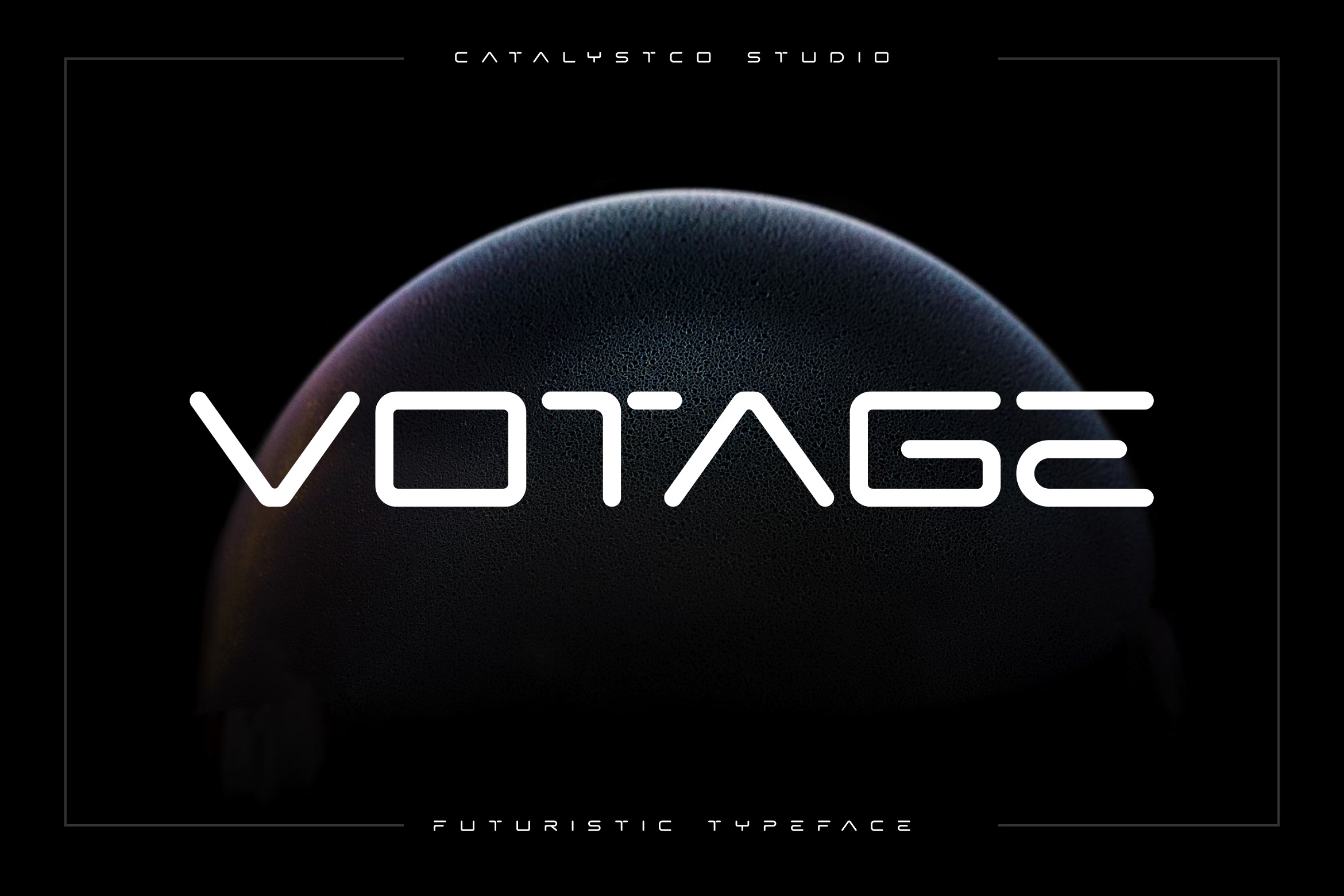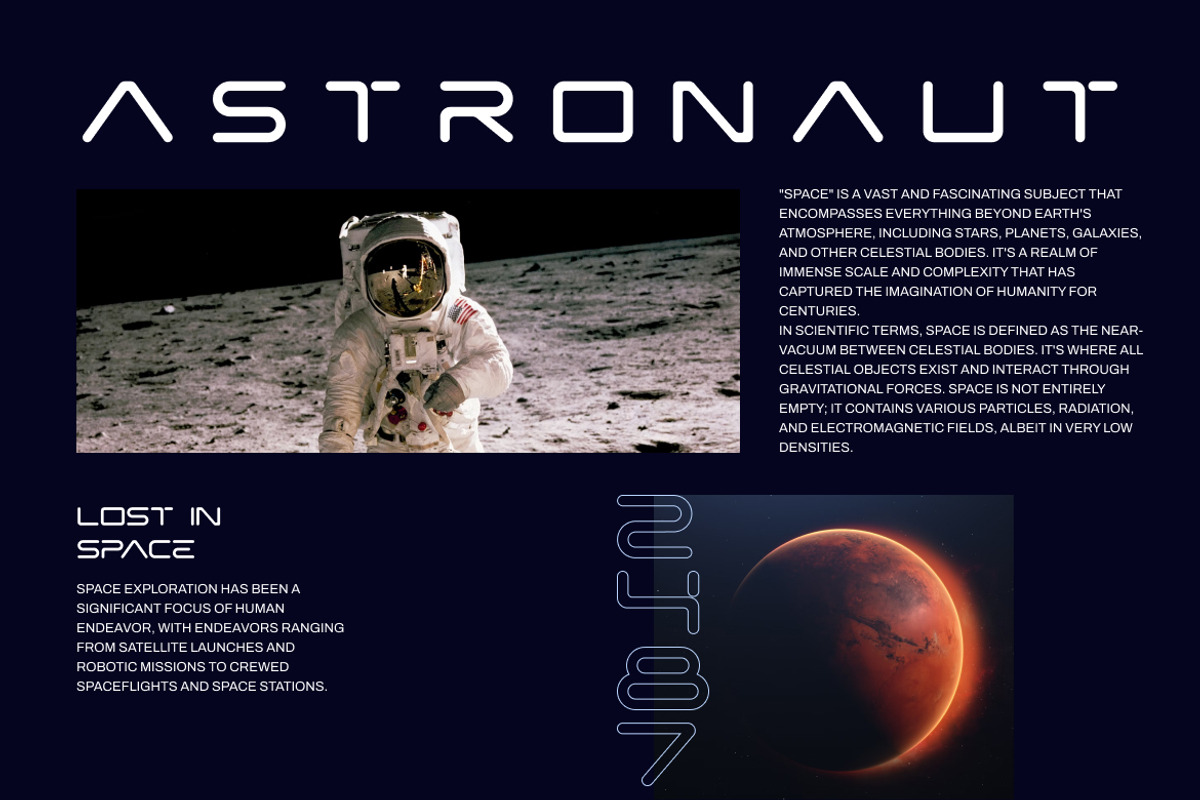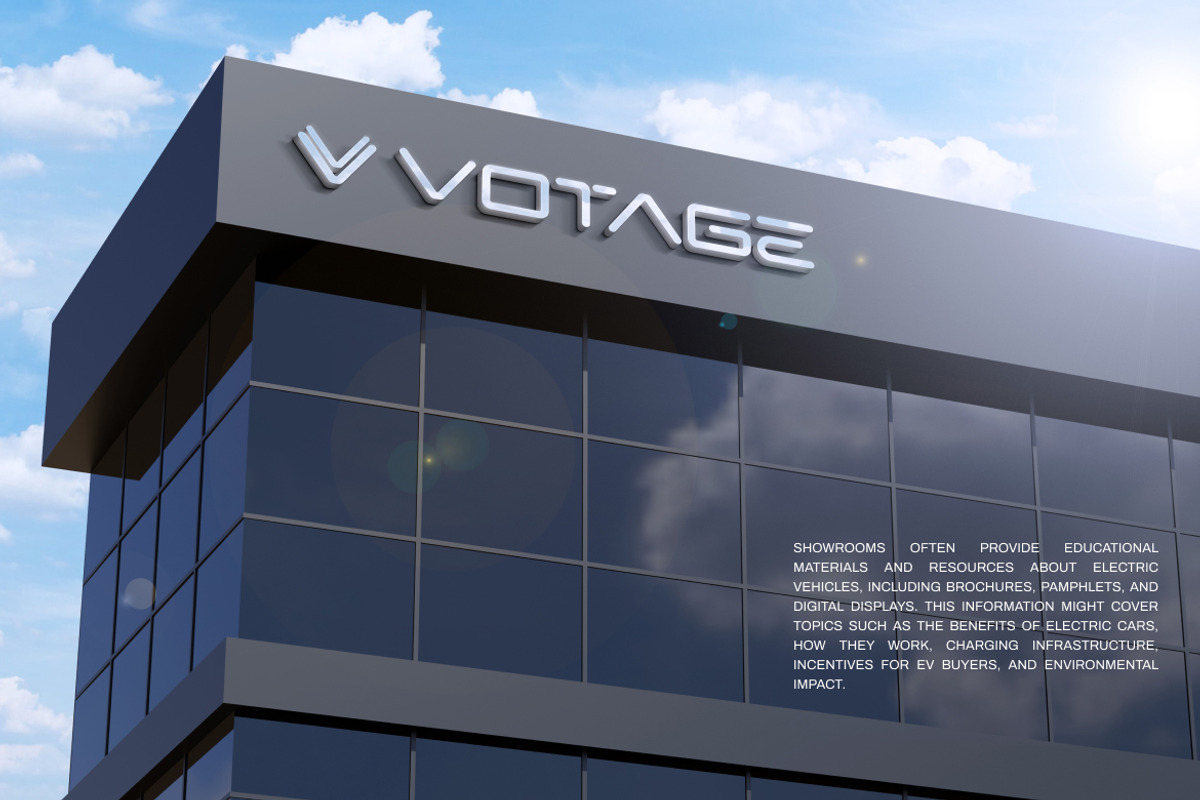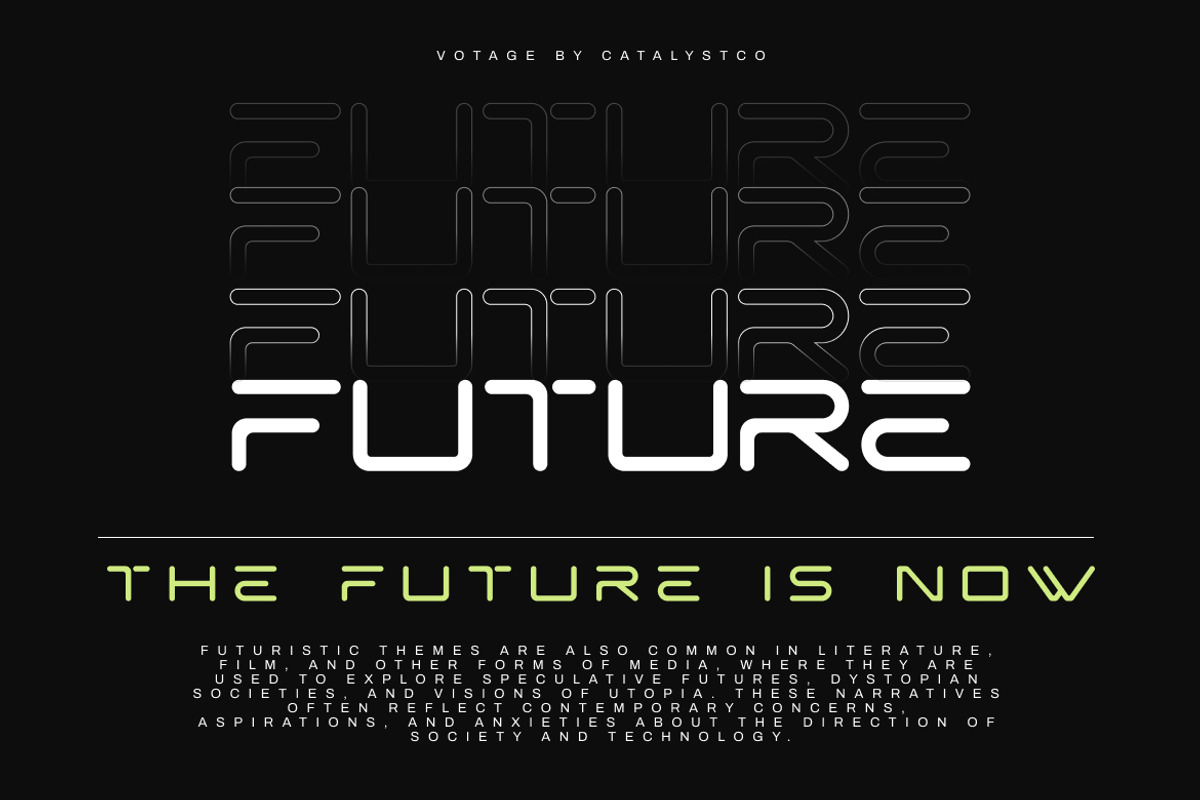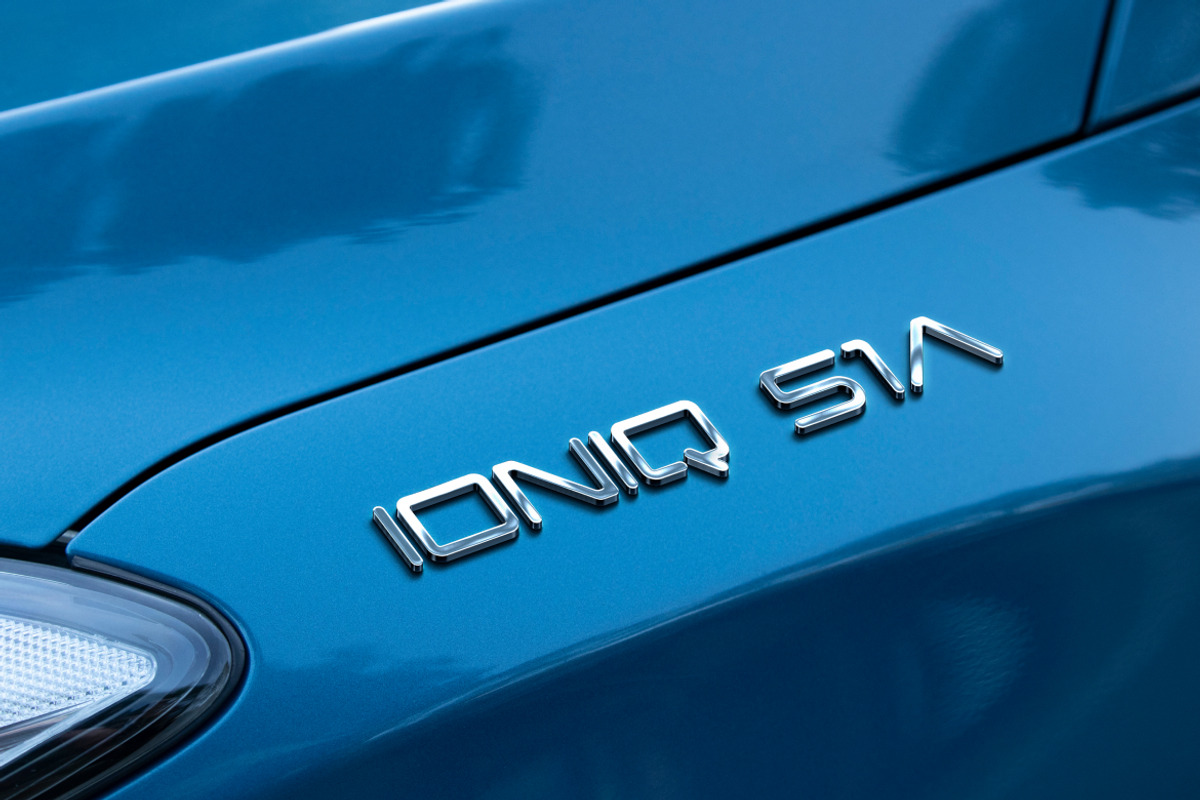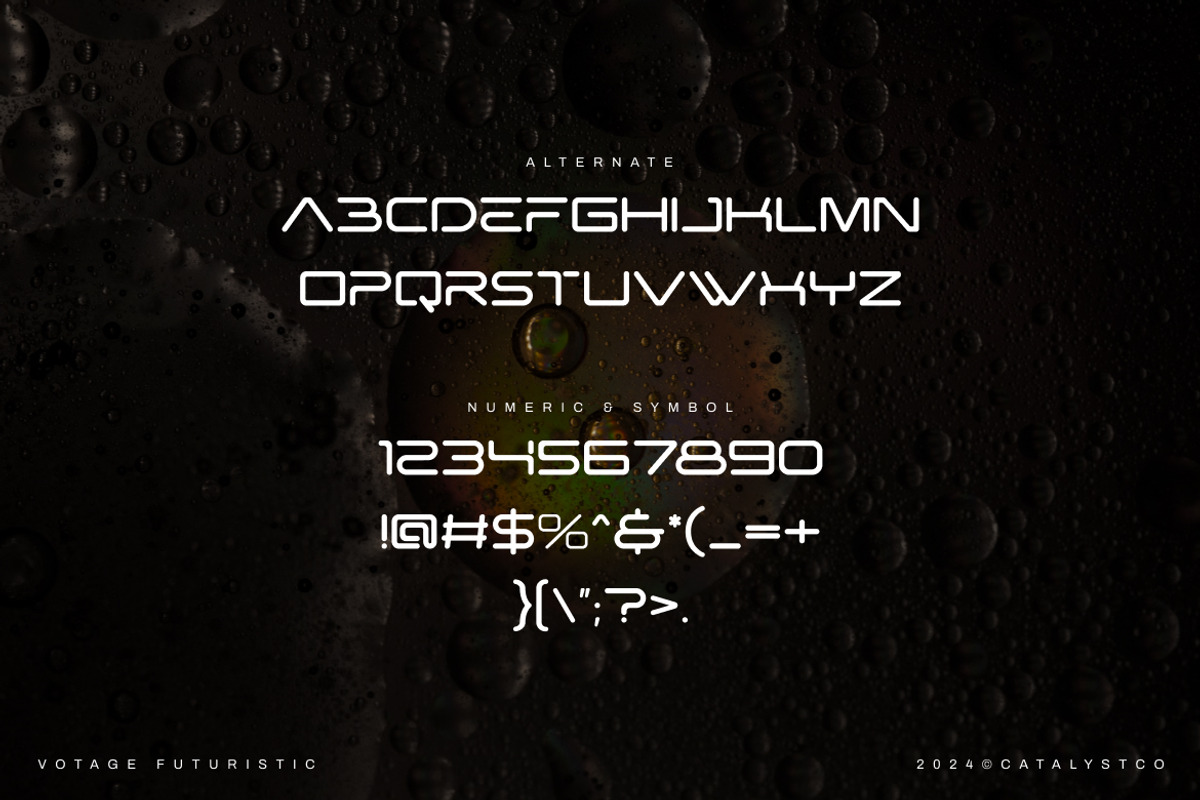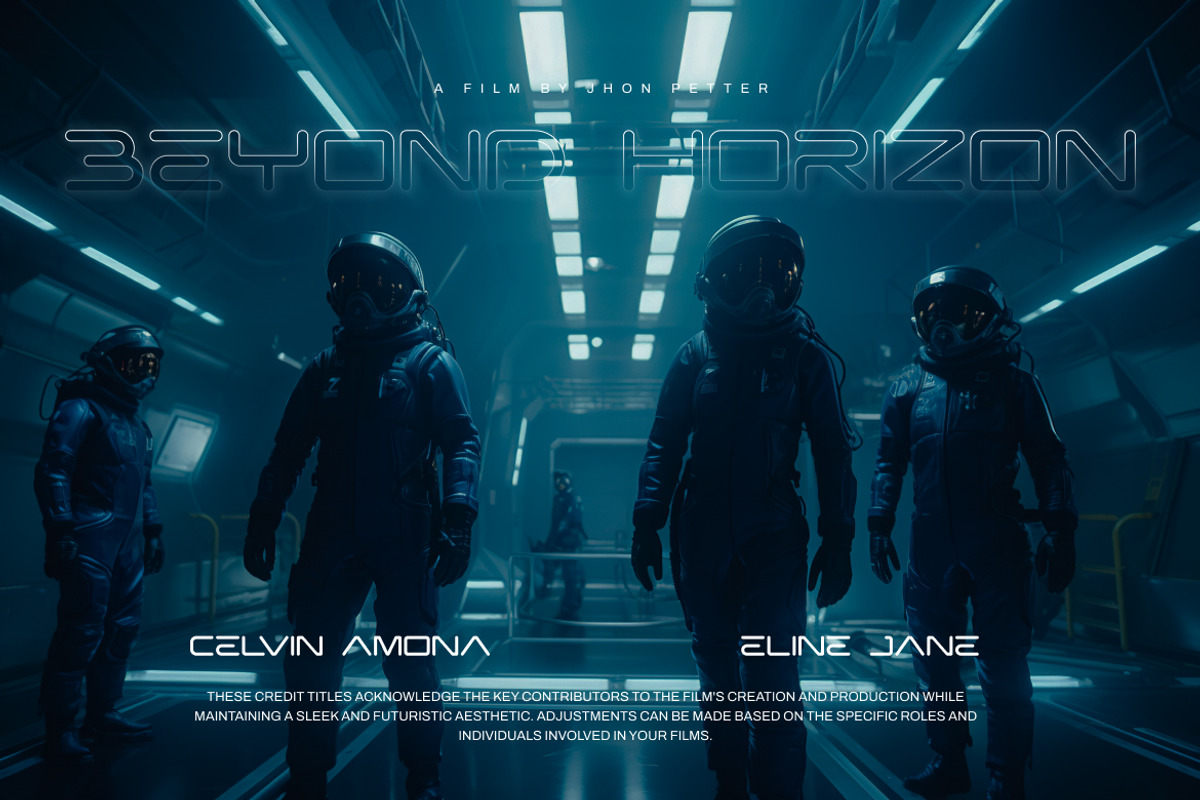
Votage Futuristic Font
Votage Futuristic Font typeface excellent used for the manufacture quote text, logotype, header magazine, and many more.
- Numeral & Punctuations